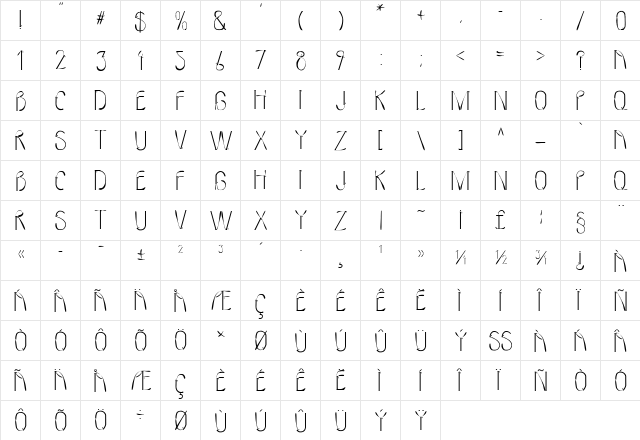
LinotypeMMistel Regular
Design Context for LinotypeMMistel Typeface
LinotypeMMistel is a composed and adaptable typeface that performs quietly and consistently across a wide range of design contexts.